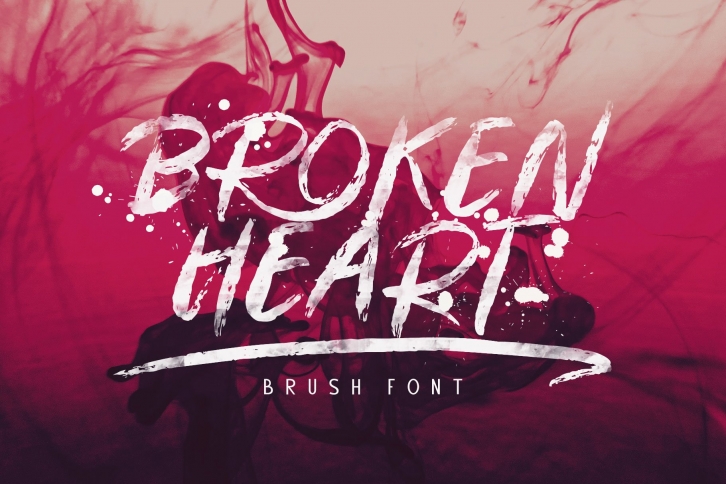
Broken Heart is a beautiful font that was designed by alit suarnegara. It's a great choice for designers and creatives who need such a font. It was released on October 30, 2020 and the file size is 10.31 MB. Broken Heart may give a more youthful, expressive and casual look to your project. It is a very beautiful, refined, elegant, and high-quality font.